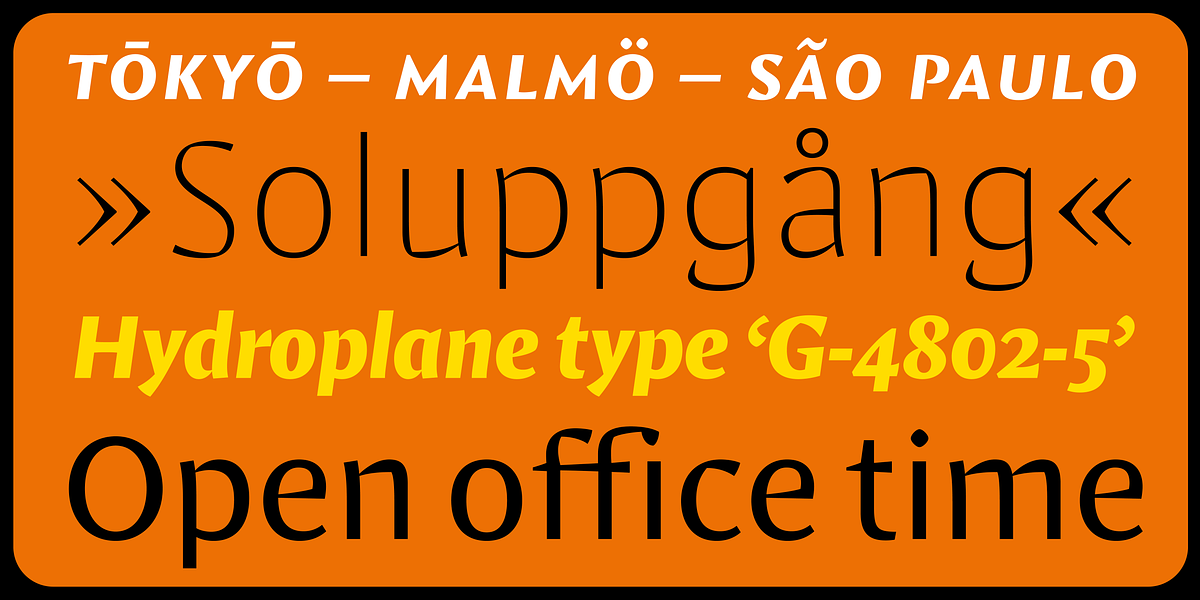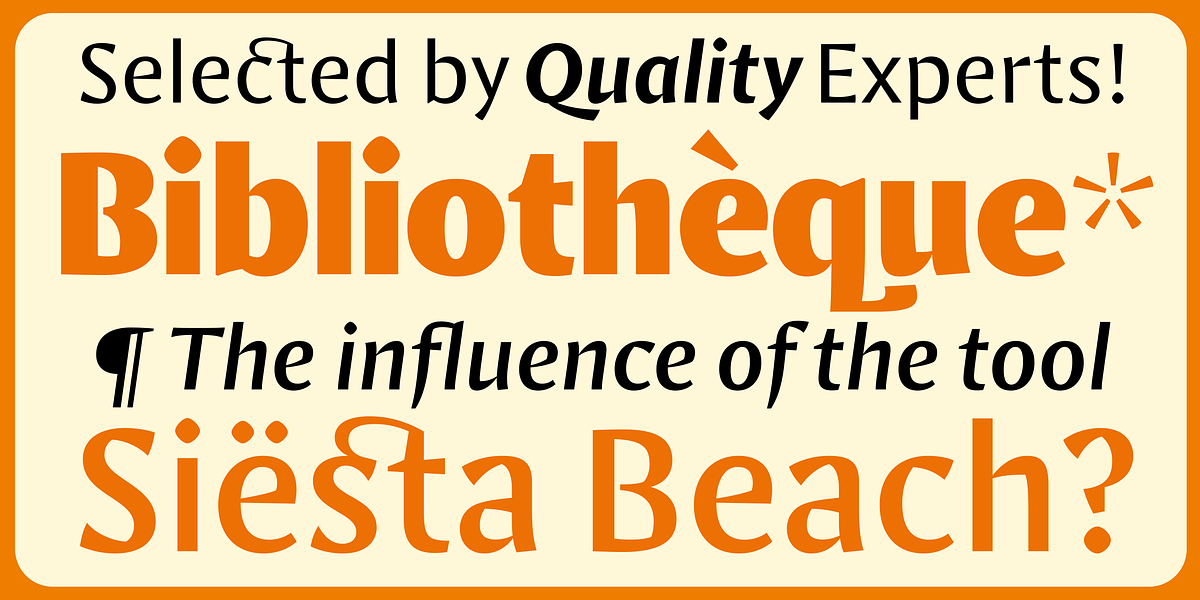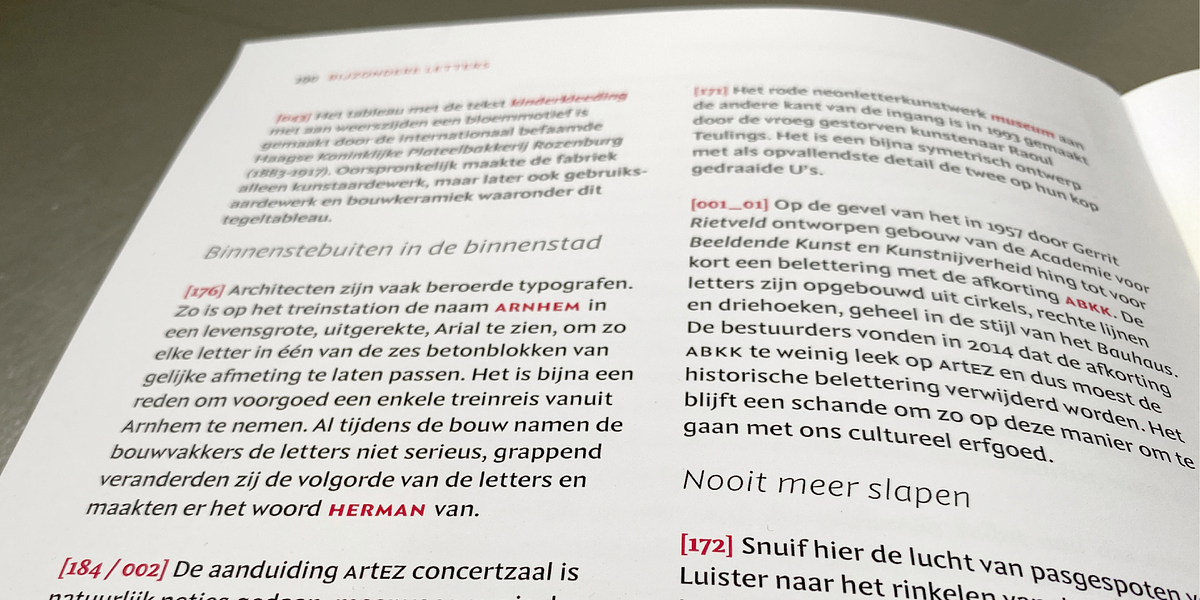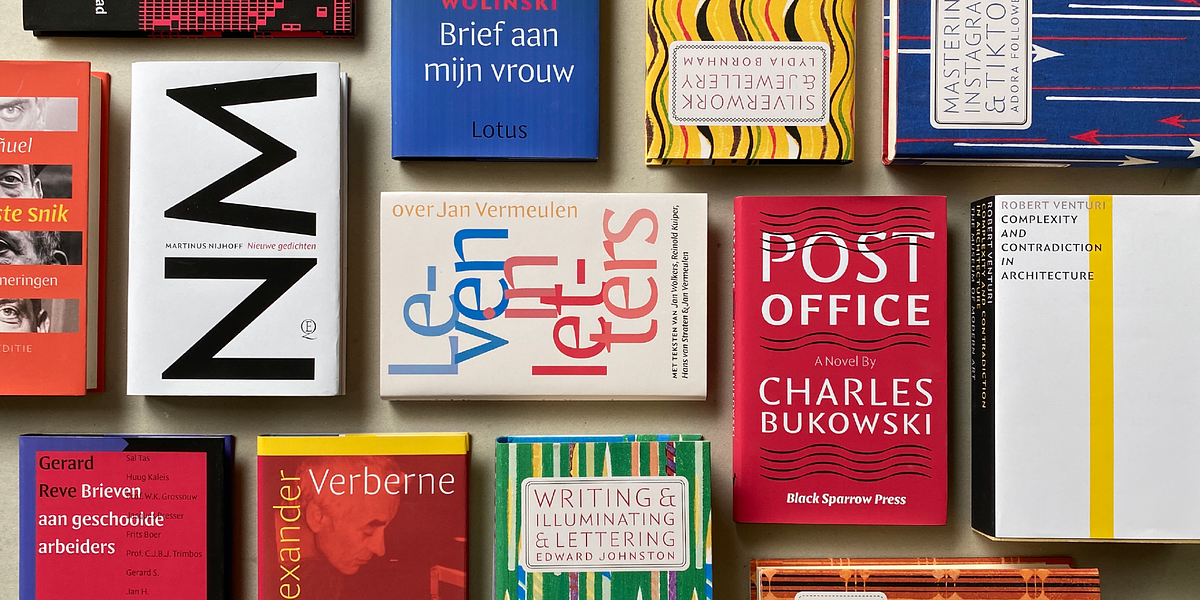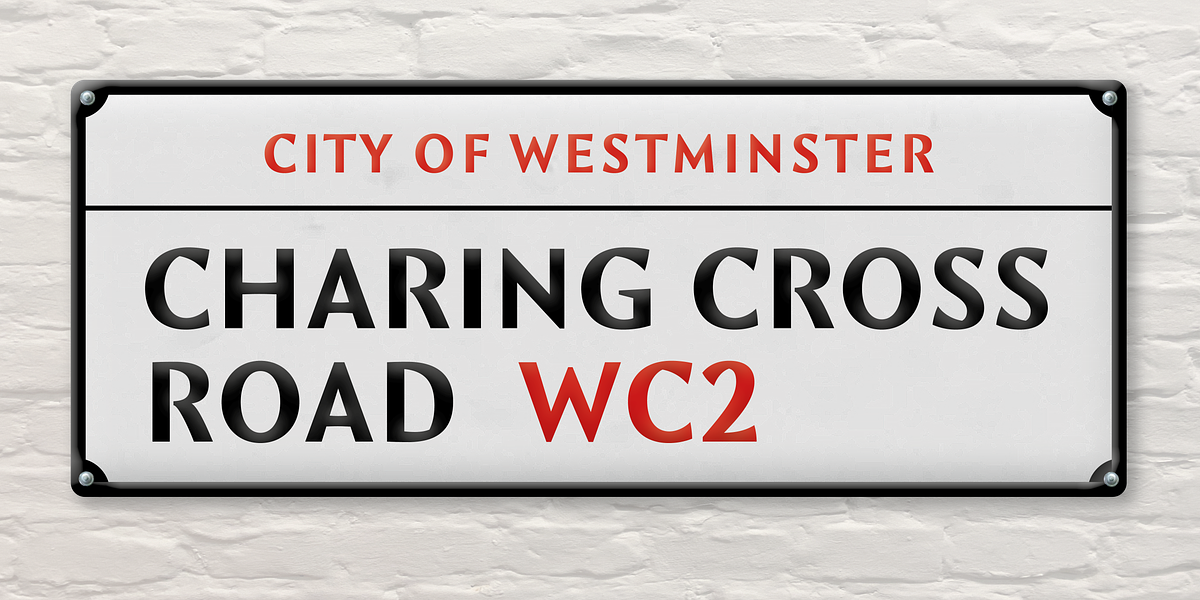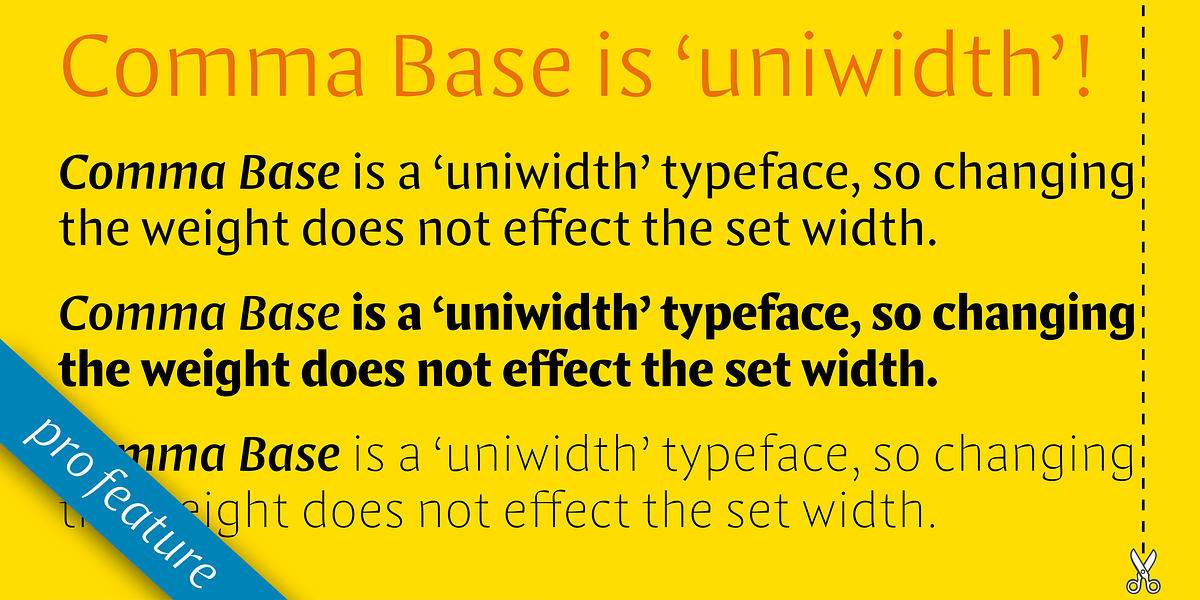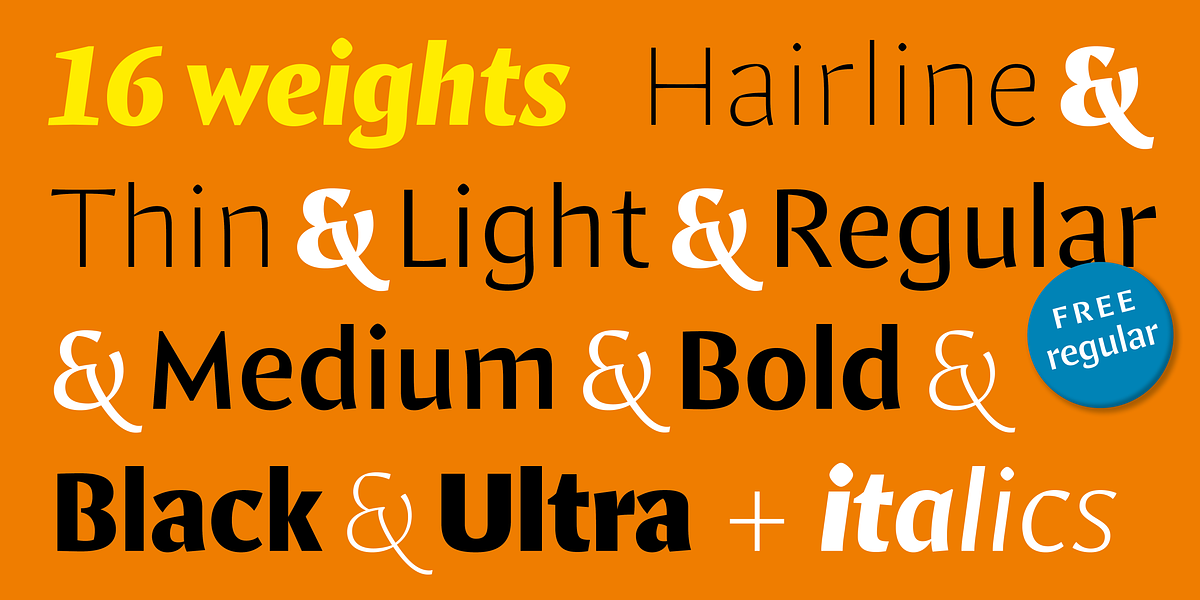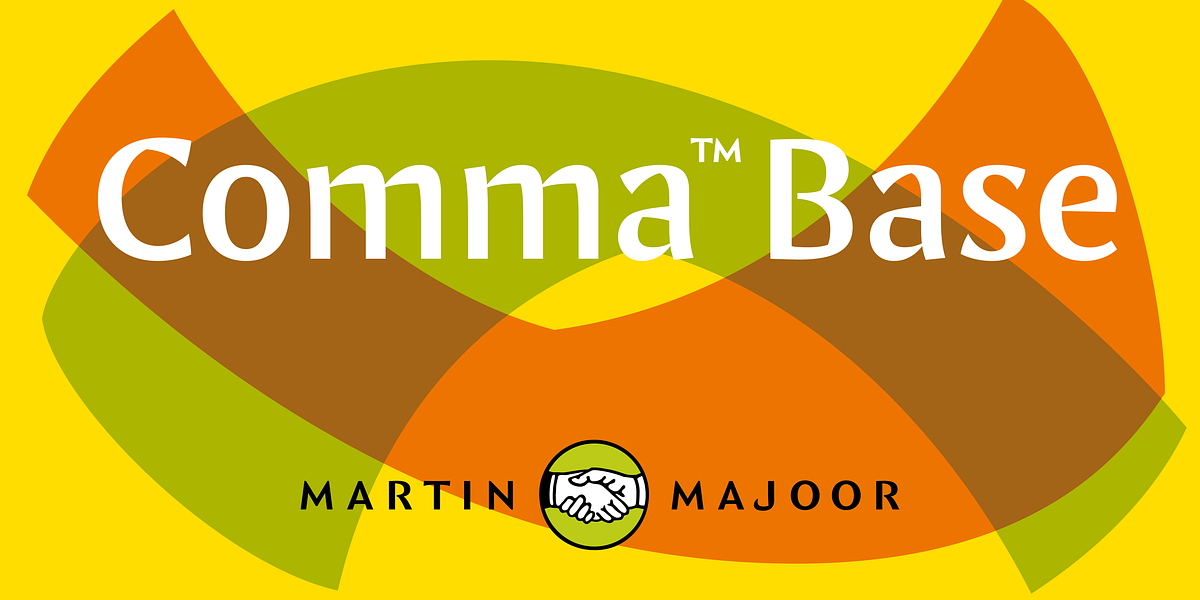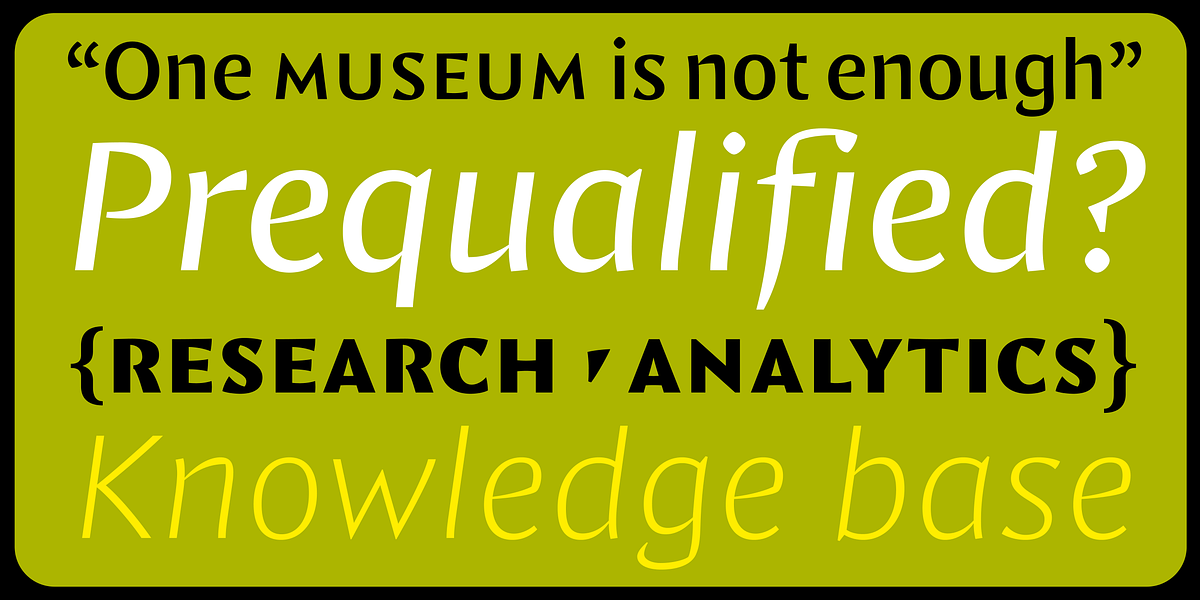
Comma Base
Comma Base is a unique sans serif typeface that blurs the line between serif and sans-serif design. Its defining feature is its high contrast, reminiscent of traditional serif fonts, but paired with a clean, geometric sans-serif structure. The font also incorporates subtle semi-serif details, adding a touch of elegance. Comma Base's uniwidth feature ensures consistent character width across different weights, making it ideal for professional applications like branding and editorial design.